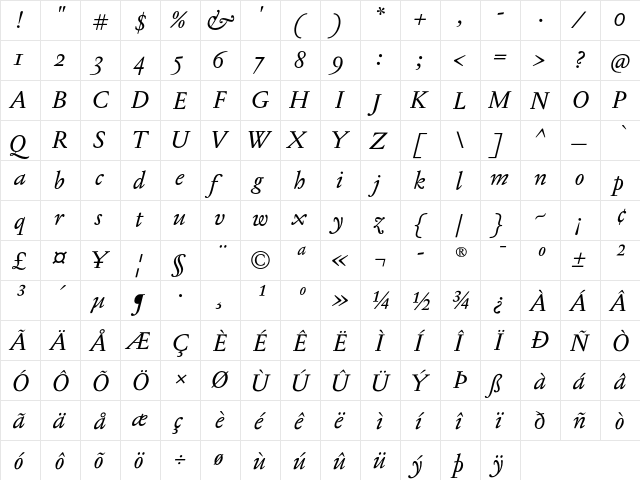
Jannon T Moderne OT Italic
| Foundry | Frantisek Storm |
| Designer | Frantisek Storm |
Design Context for Jannon T Moderne OT Typeface
Jannon T Moderne OT takes a measured approach to typography — its balanced proportions and neutral character make it a reliable workhorse for both digital and print work. Its italic angle brings a sense of urgency and motion to the letterforms.
Pro Tip: Use Jannon T Moderne OT for emphasis, pull quotes, and subheadings where its slanted energy can add rhythm to the layout.